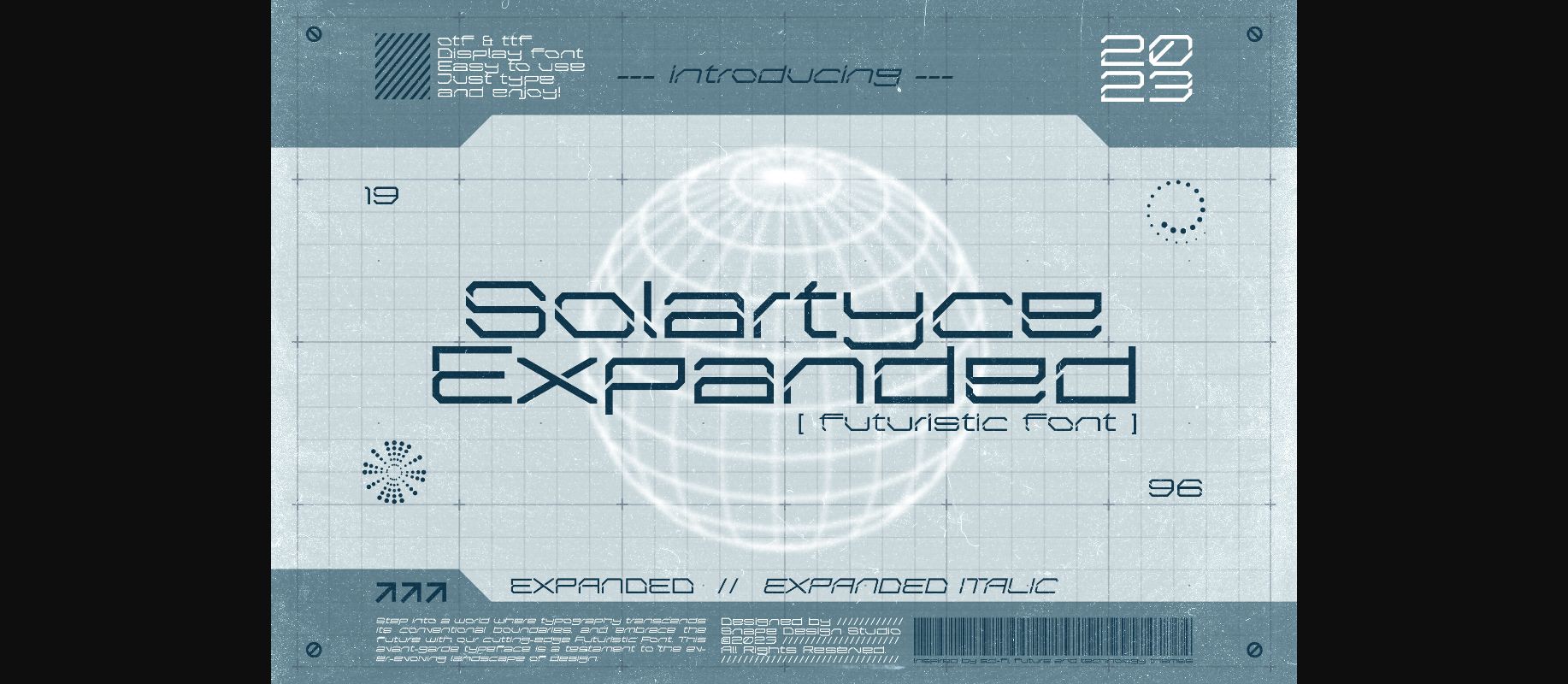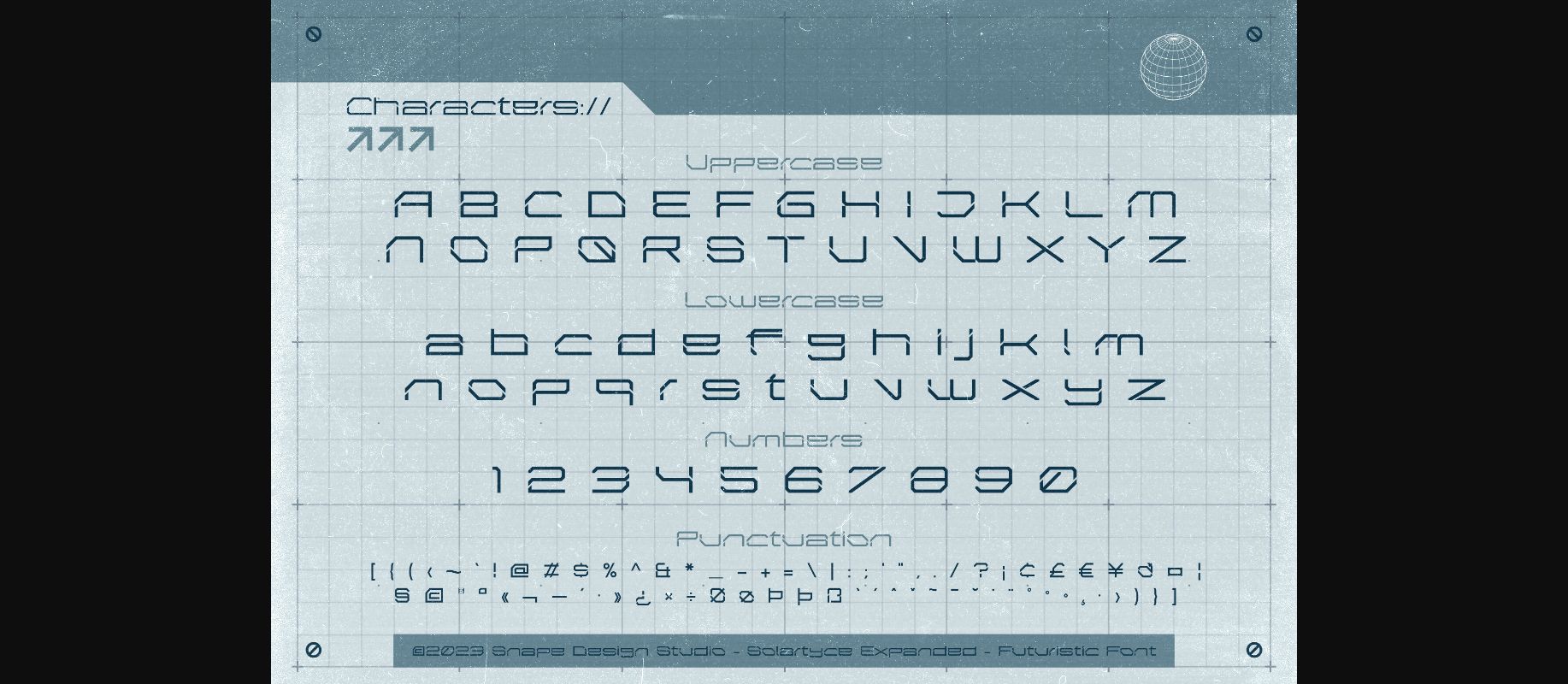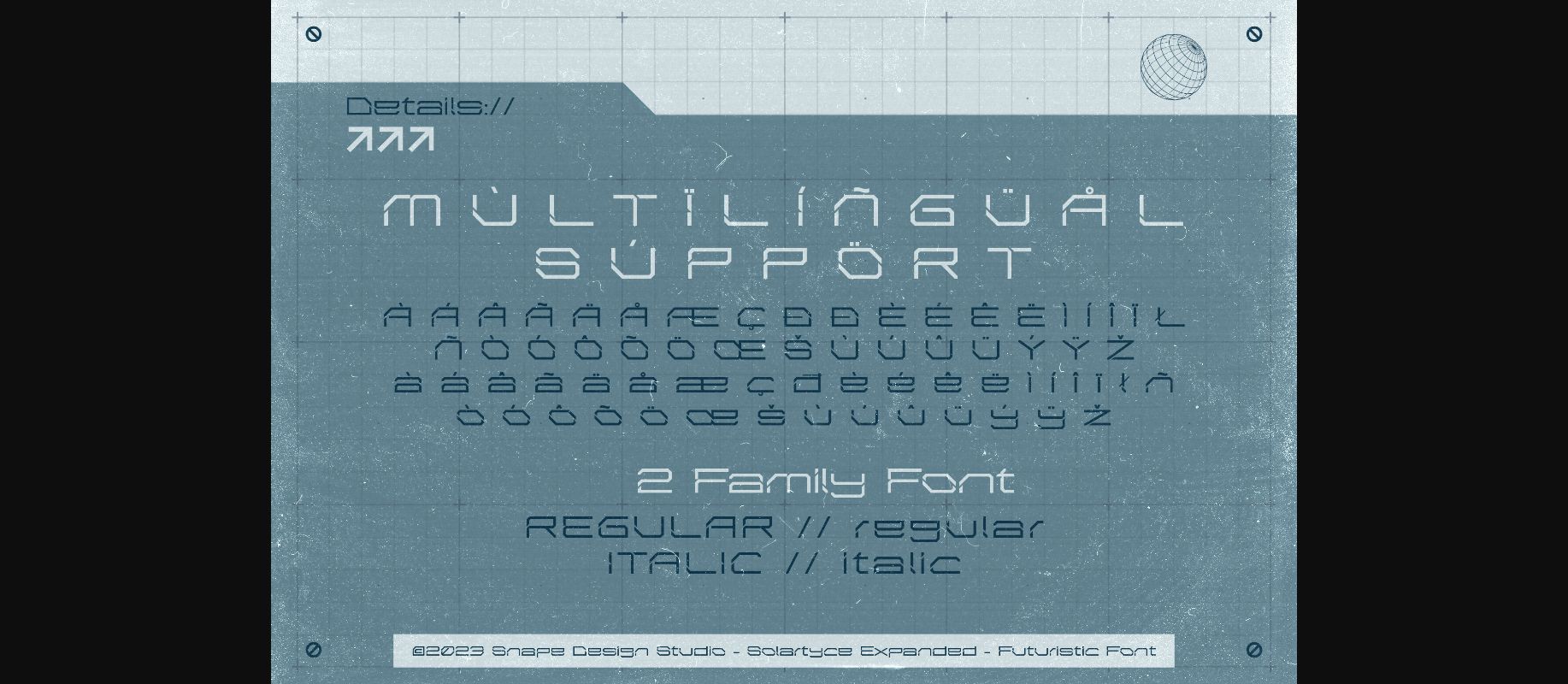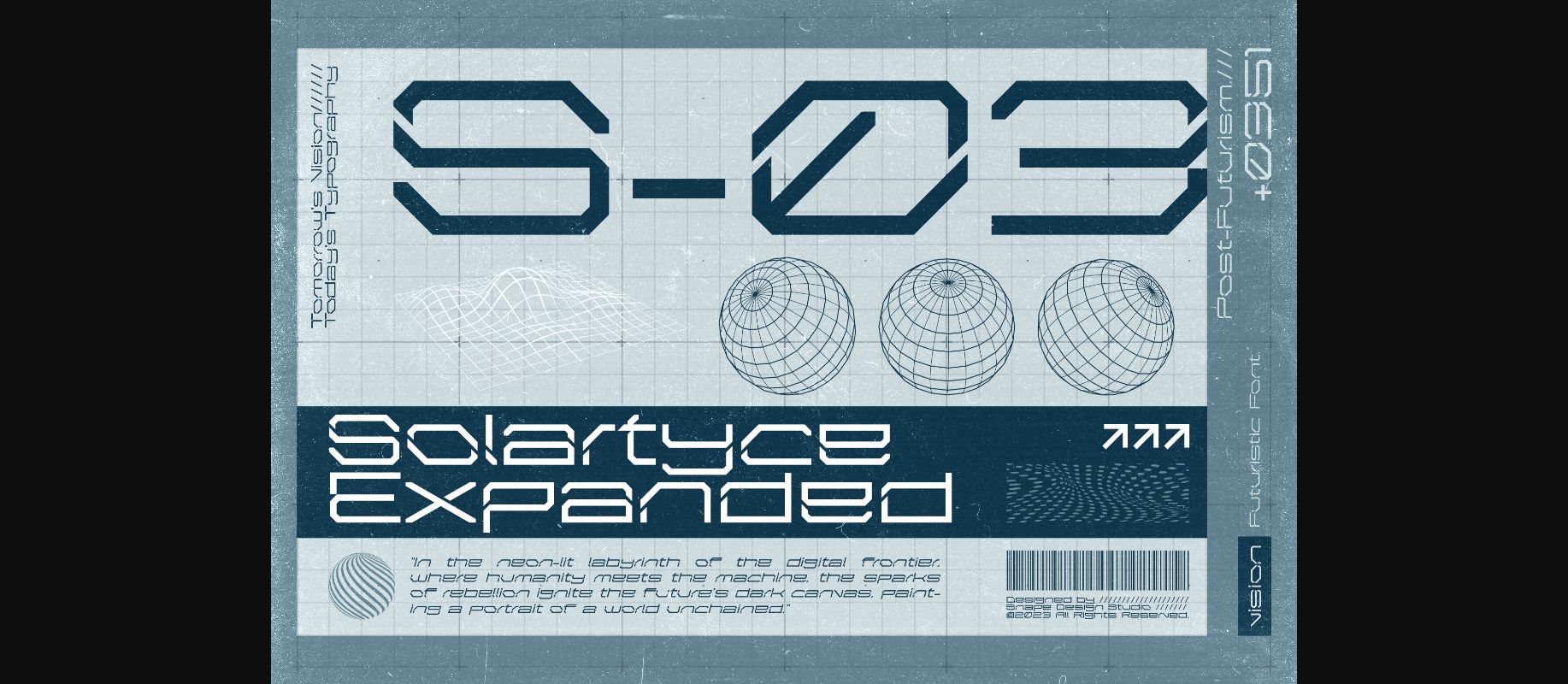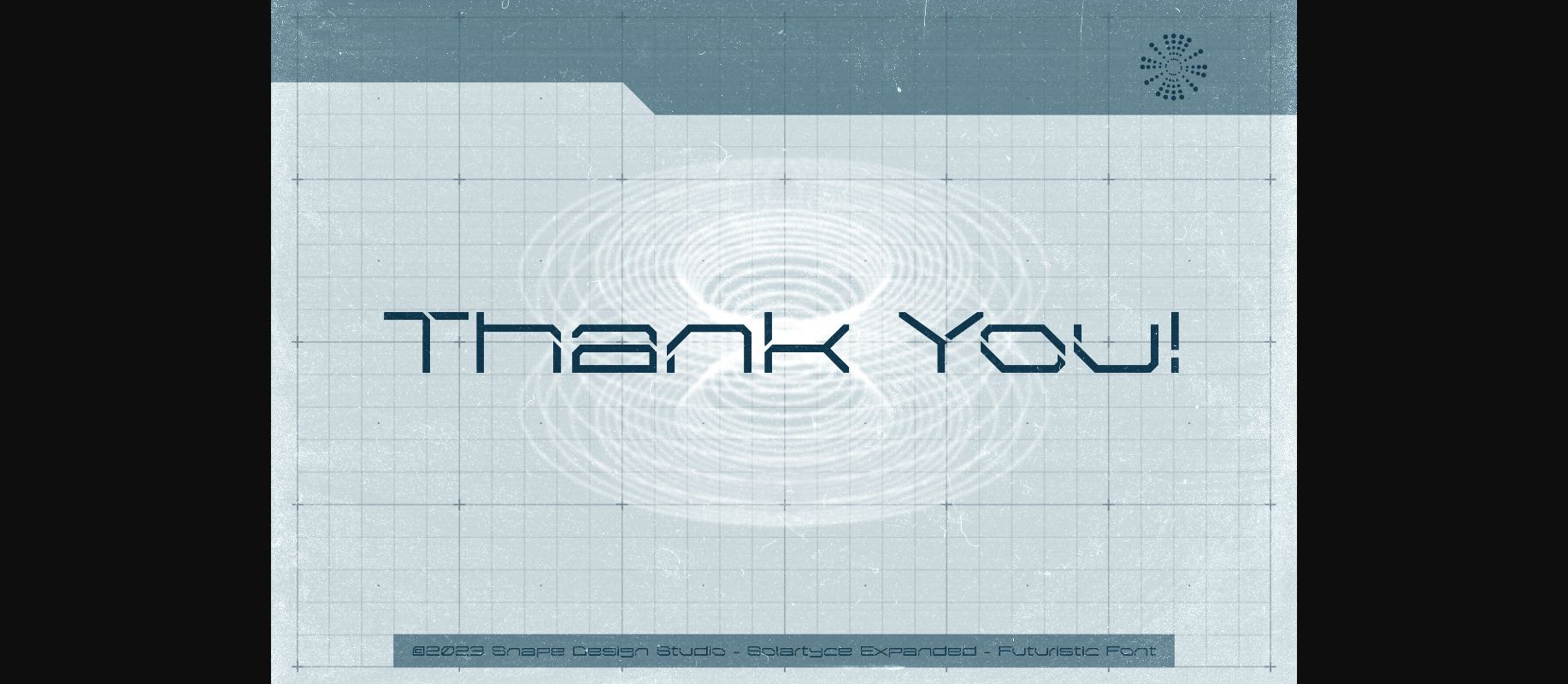
Solartyce Expanded Font
Introducing our Futuristic Font product – where innovation meets aesthetics in the realm of typography. This cutting-edge collection of fonts redefines the future of design, offering sleek, dynamic, and visually striking characters that seamlessly blend technology and artistry. Perfect for sci-fi themes, tech branding, or any project that demands a modern edge, these fonts empower creativity with their versatility and user-friendly customization options. Elevate your designs to the next level and embrace the future of typography with our Futuristic Font product.